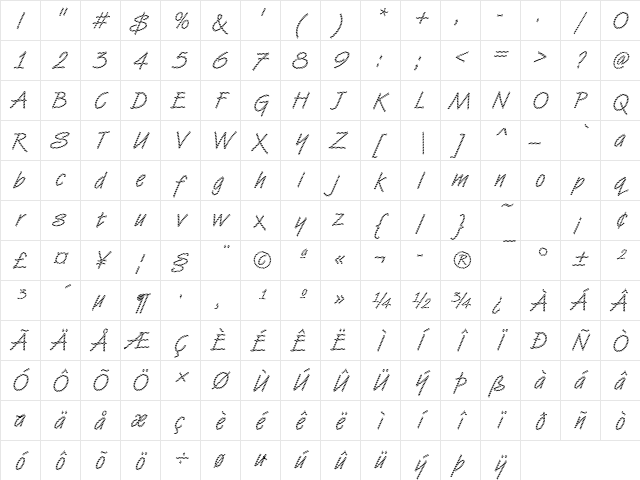
Complete VanDijk05 Becker Regular glyph index. Displaying only characters natively supported by VanDijk05 Becker Regular font.
VanDijk05 Becker is a composed and adaptable typeface that performs quietly and consistently across a wide range of design contexts.